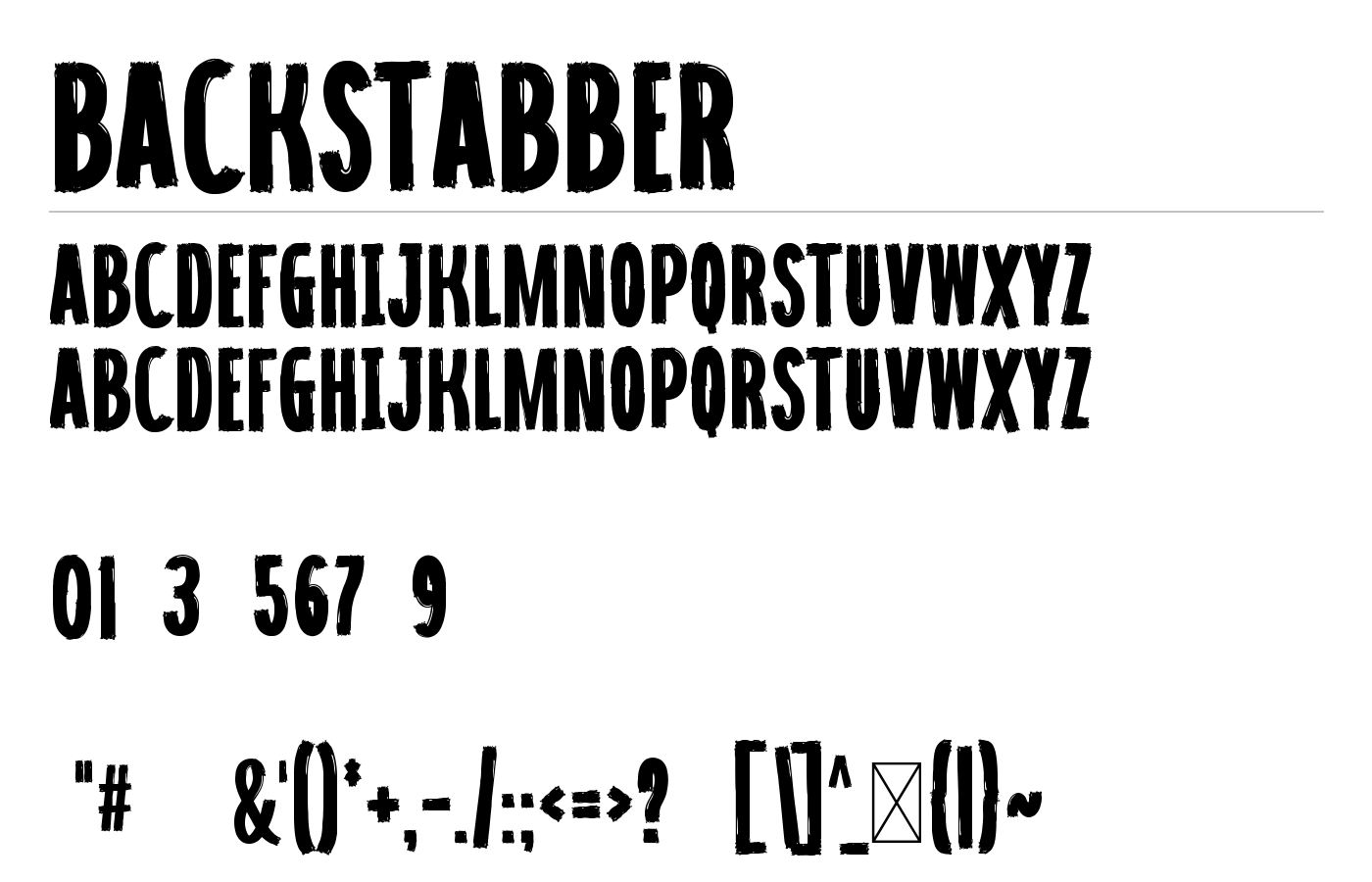
Backstabber is a bold, condensed sans serif font with a rough, textured edge that gives it a gritty, distressed look. Its tall, narrow letterforms and uneven stroke details create a dramatic, edgy feel, making it ideal for designs that want to convey intensity and raw energy. This font works well in posters, logos, and headlines where a strong, rebellious statement is needed.
Backstabber Font
About Backstabber Font
| Font family | Backstabber Font |
| Designer | Anang F & Malik Wsn | Gassstype© Studio 2021 |